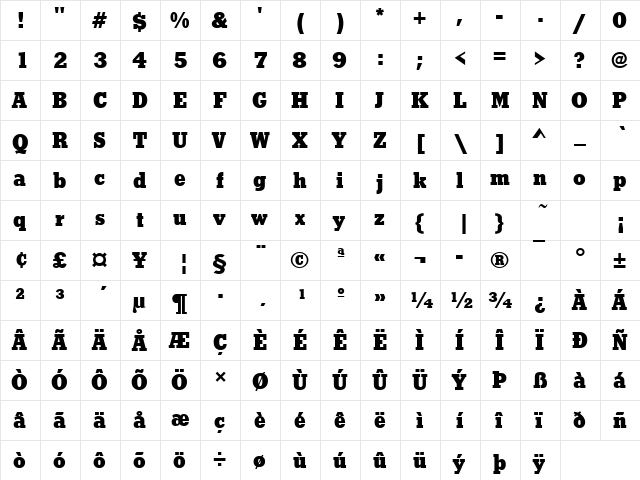
Stymie Becker Black Regular
Design Context for Stymie Becker Black Typeface
Stymie Becker Black takes a measured approach to typography — its balanced proportions and neutral character make it a reliable workhorse for both digital and print work.